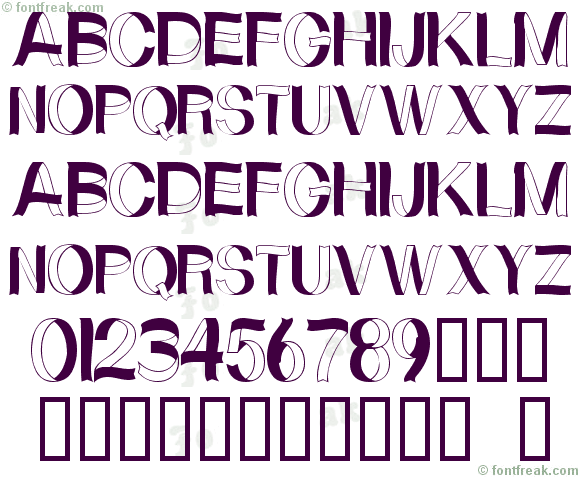
CurlyRibbons
Curly Ribbons by Lime is a captivating decorative font that embodies a playful and whimsical style, perfect for a variety of creative projects. This unique font features an intricate design with flowing, curly strokes that resemble ribbons, giving it a light-hearted and cheerful appearance. The strokes are medium in weight, providing a balanced contrast that enhances readability while maintaining a decorative flair. The ample spacing between letters ensures clarity, making it ideal for both titles and body text in various applications.
The Curly Ribbons font is particularly well-suited for wedding invitations, where its romantic and elegant curves can beautifully convey the joyous occasion. Additionally, it can enhance the visual appeal of children's book covers, bringing an enchanting touch that captures the imagination. For restaurant menus, this font adds a fun and inviting atmosphere, making dishes feel more enticing. It can also be used effectively in greeting cards and party invitations, creating a festive vibe that resonates with celebratory themes.
What sets the Curly Ribbons font apart is its ability to blend elegance with a sense of fun, making it a versatile choice for various design needs. Whether you’re crafting a whimsical flyer or a heartfelt invitation, this font’s delightful style will leave a lasting impression, ensuring your designs resonate with your audience. Embrace the playful spirit of Curly Ribbons and watch your projects come to life with its enchanting flair.